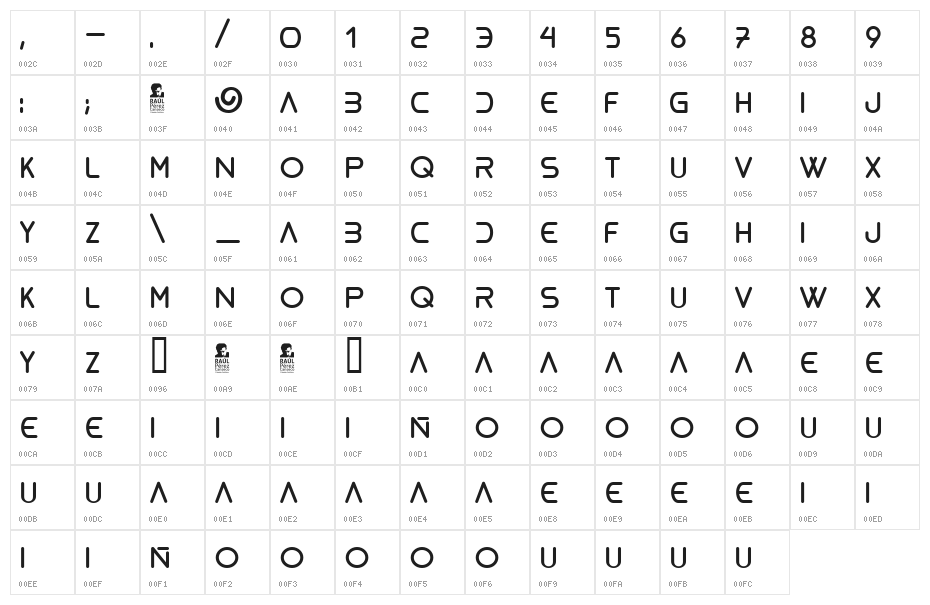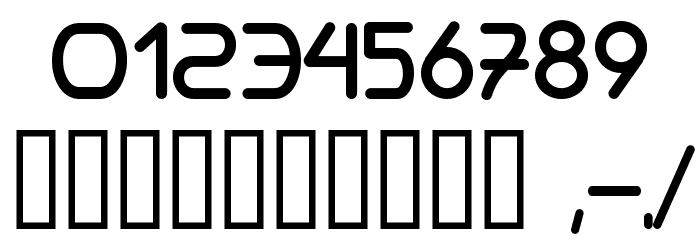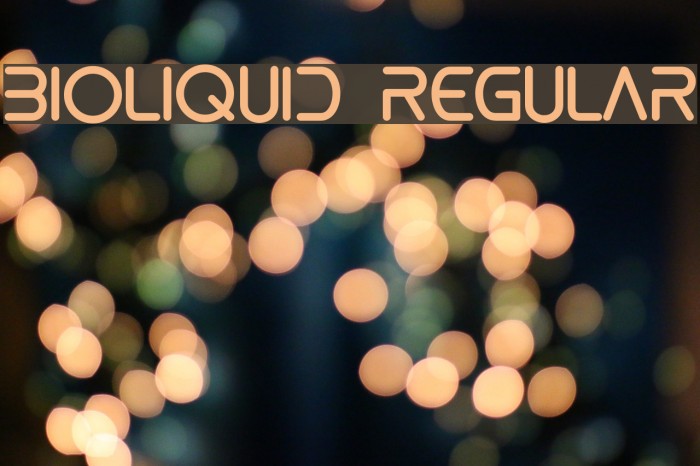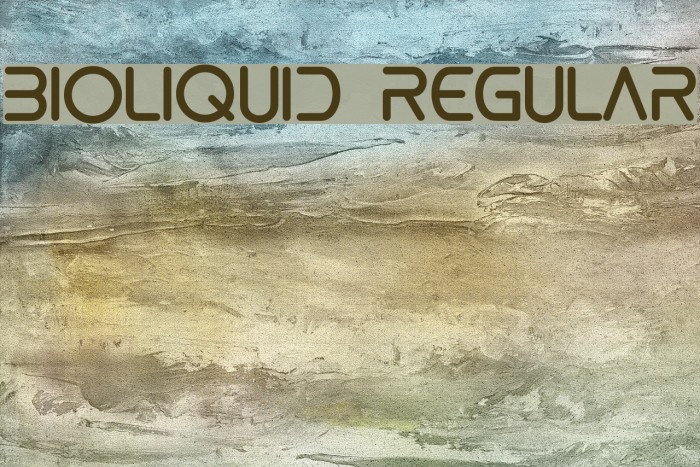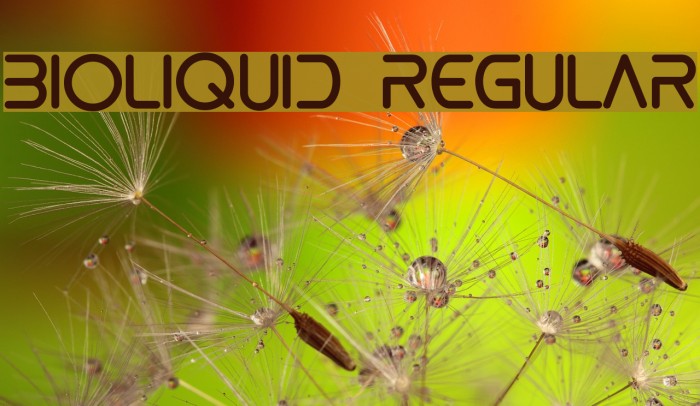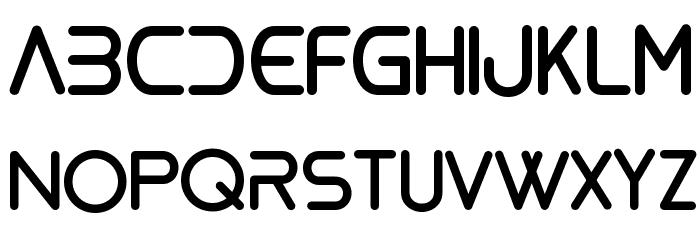
bioliquid Regular Font
bioliquid Regular Description
This font features a modern, geometric design with rounded edges and a clean, streamlined appearance. The characters are uniform in width, creating a harmonious and balanced look. The uppercase letters are bold and prominent, while the lowercase letters maintain the same geometric style, ensuring consistency throughout the typeface. The numerals are distinct and easy to read, matching the overall aesthetic of the font. Special characters are included, maintaining the same design principles. This font is ideal for projects that require a contemporary and futuristic feel.
| Use Case | Headlines, Logos, Digital Interfaces |
| Proposed Projects | Ideal for branding, advertising, digital interfaces, and modern design projects. |